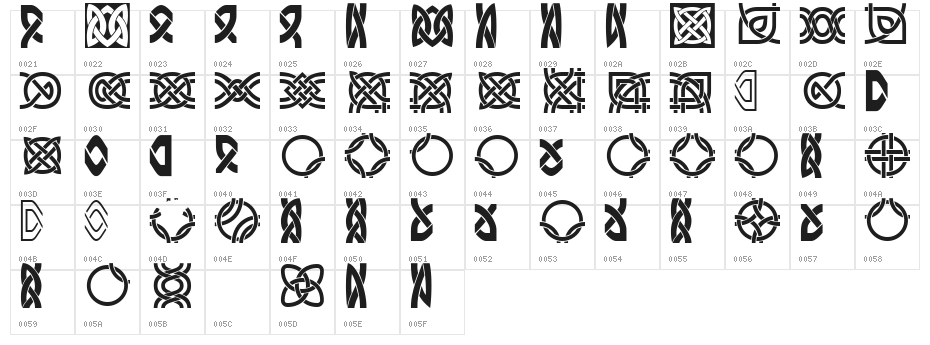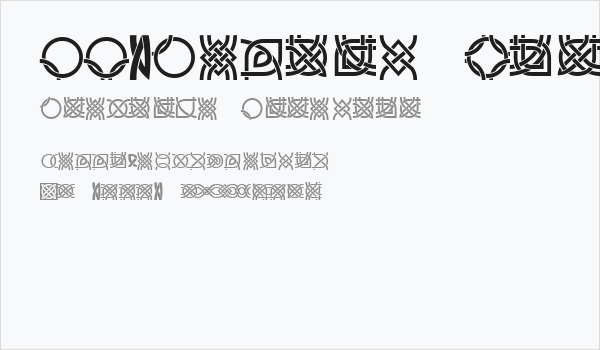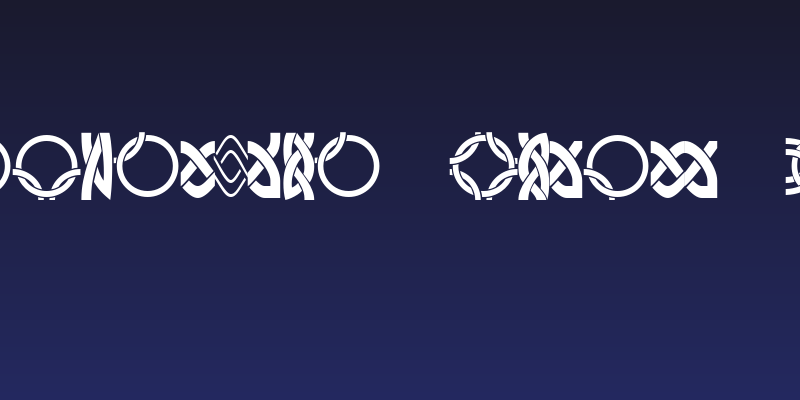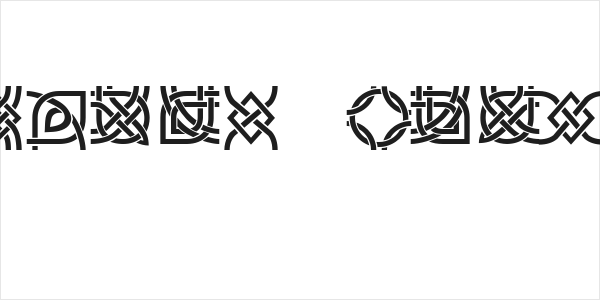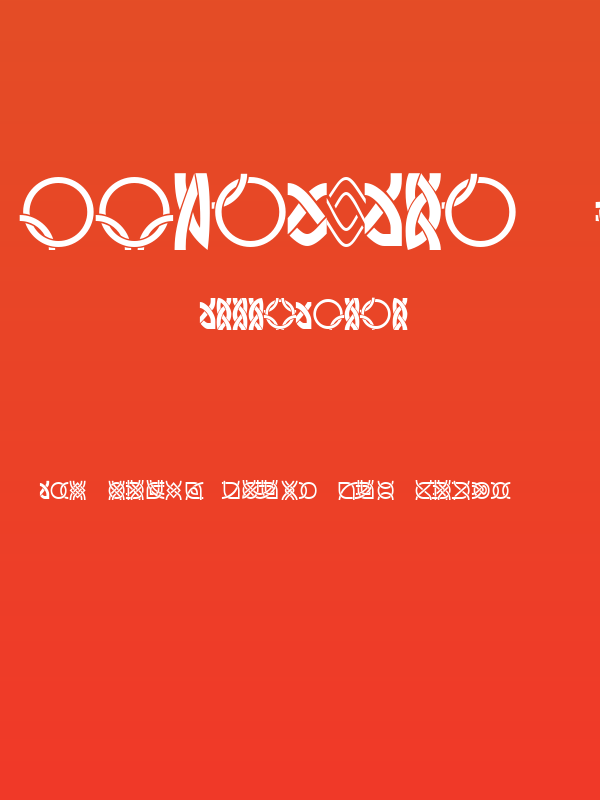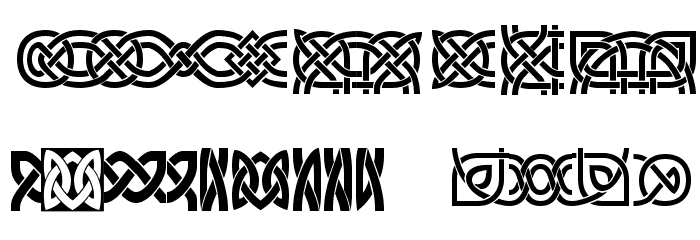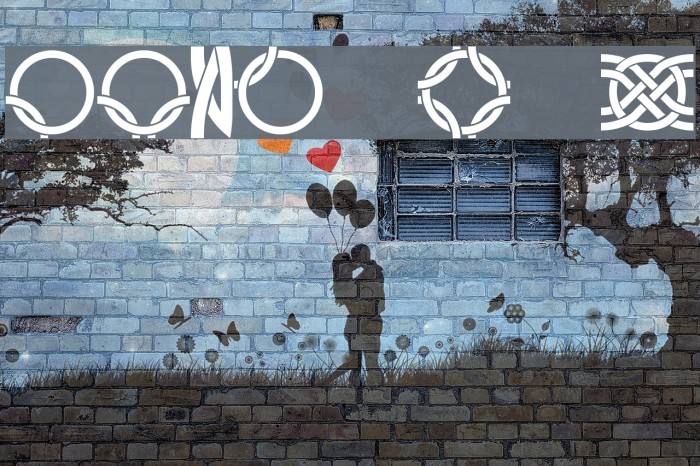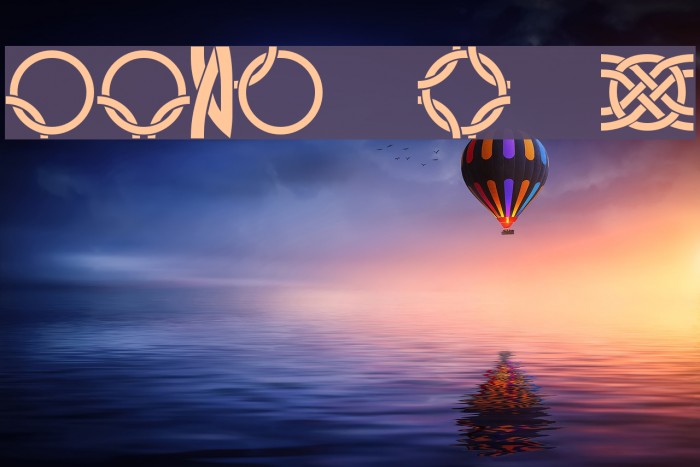
DS_Celtic Border 1 Font
DS_Celtic Border 1 Description
This design features intricate Celtic-inspired patterns that are highly decorative and complex. The motifs are characterized by interwoven lines and loops, creating a sense of endless continuity and flow. The designs are bold and striking, with a high contrast between the thick, black lines and the white spaces, enhancing the visual impact. The patterns are symmetrical and balanced, often forming circular or geometric shapes that are reminiscent of traditional Celtic knots. These designs are not only visually captivating but also carry a sense of historical and cultural significance, often associated with themes of eternity and interconnectedness.
| Use Case | Logos, Decorative elements, Borders |
| Proposed Projects | Ideal for use in graphic design projects such as book covers, posters, or as decorative elements in branding. They can also be used in textile design, jewelry, or as borders in digital or print media. |